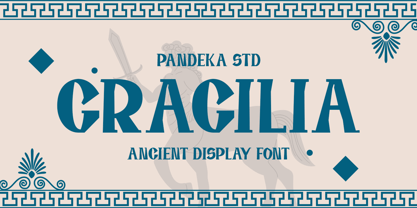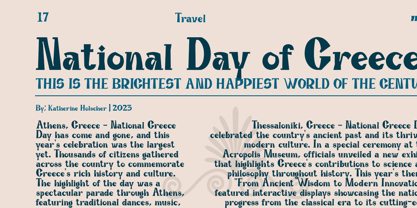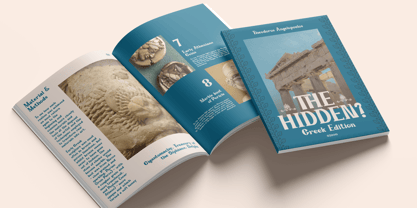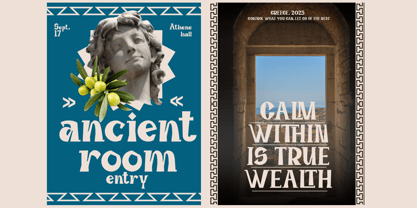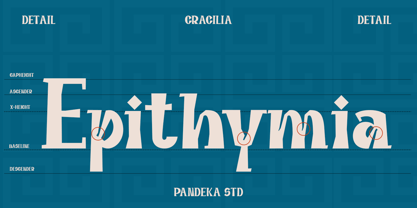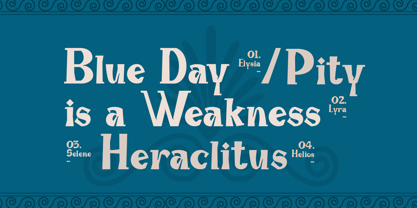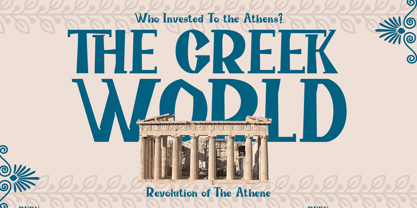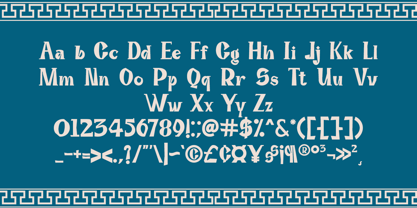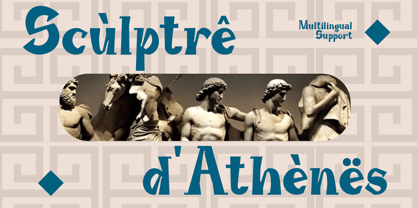
Gragilia
The Gragilia Font Family was designed by Sagara Nararya and published by Pandeka Studio. Gragilia contains 1 styles. More about this family
Introducing Gragilia – Ancient Greek Font Inspired by Timeless History Gragilia is a font inspired by the beauty and grandeur of Ancient Greek culture. Its design echoes the elegance and strength of ancient inscriptions, capturing the spirit of a time filled with mythology, philosophy, and artistic brilliance. With its single style: Regular, Gragilia brings a classic yet modern touch to your designs.
Whether you’re working on projects like book covers, branding, logos, or historical-themed designs, Gragilia’s bold and timeless letterforms are here to elevate your creativity. This typeface balances precision and character, making it perfect for creating designs that stand out while honoring the stories of the past.
• Full Character Set: Uppercase, lowercase, numbers, symbols, and punctuation
Bring the elegance of Ancient Greece into your designs with Gragilia. Whether you’re creating timeless branding, historic themes, or artistic expressions, this font will make your projects unforgettable.